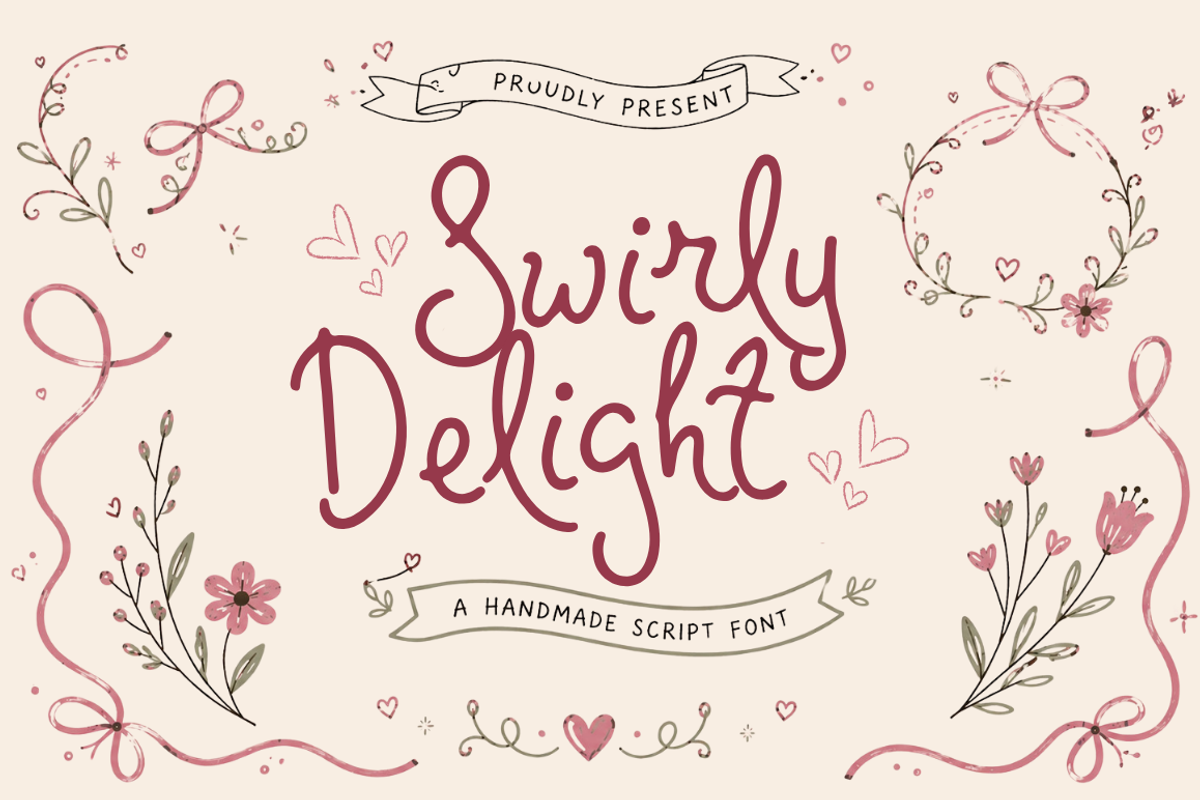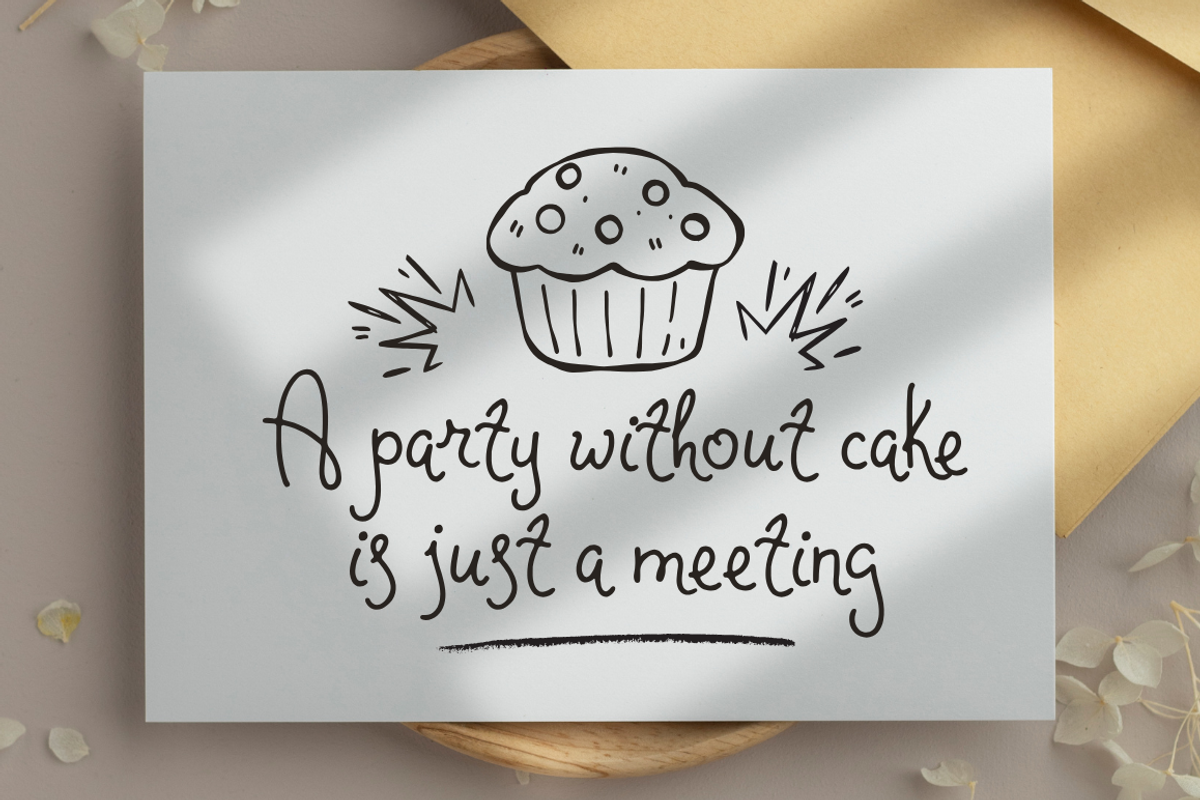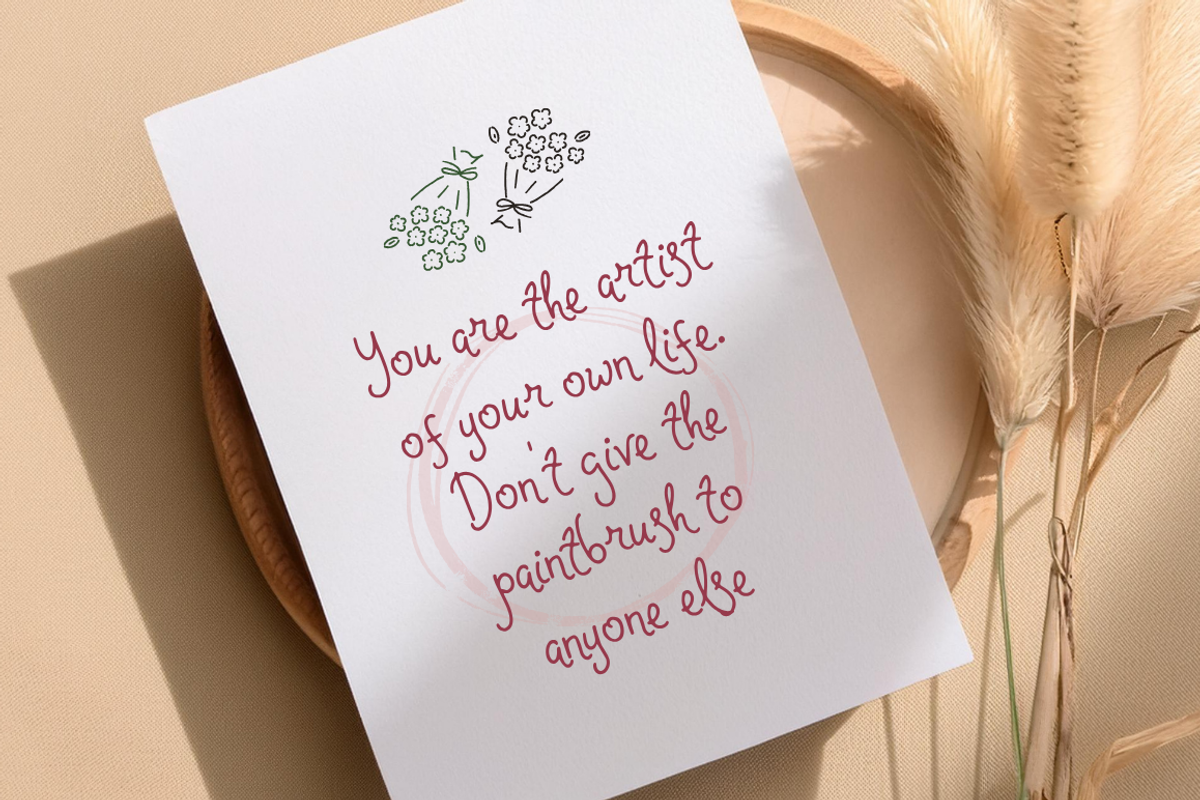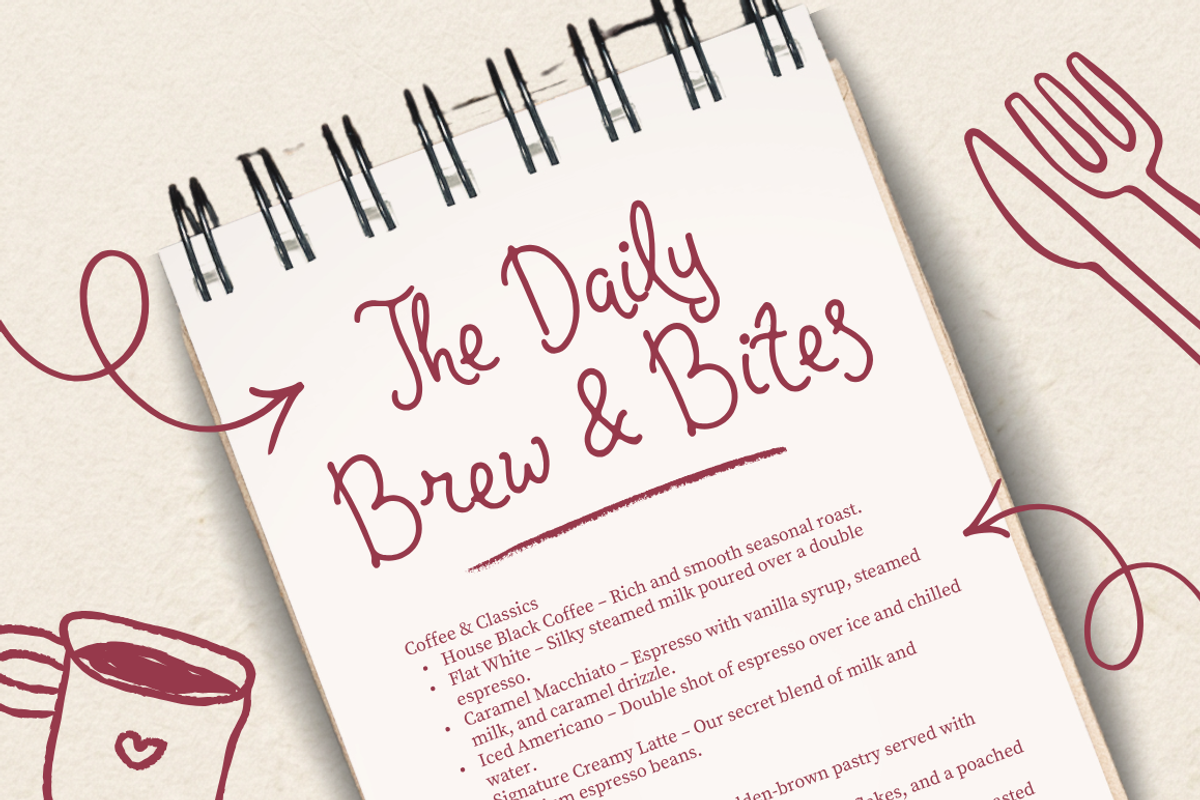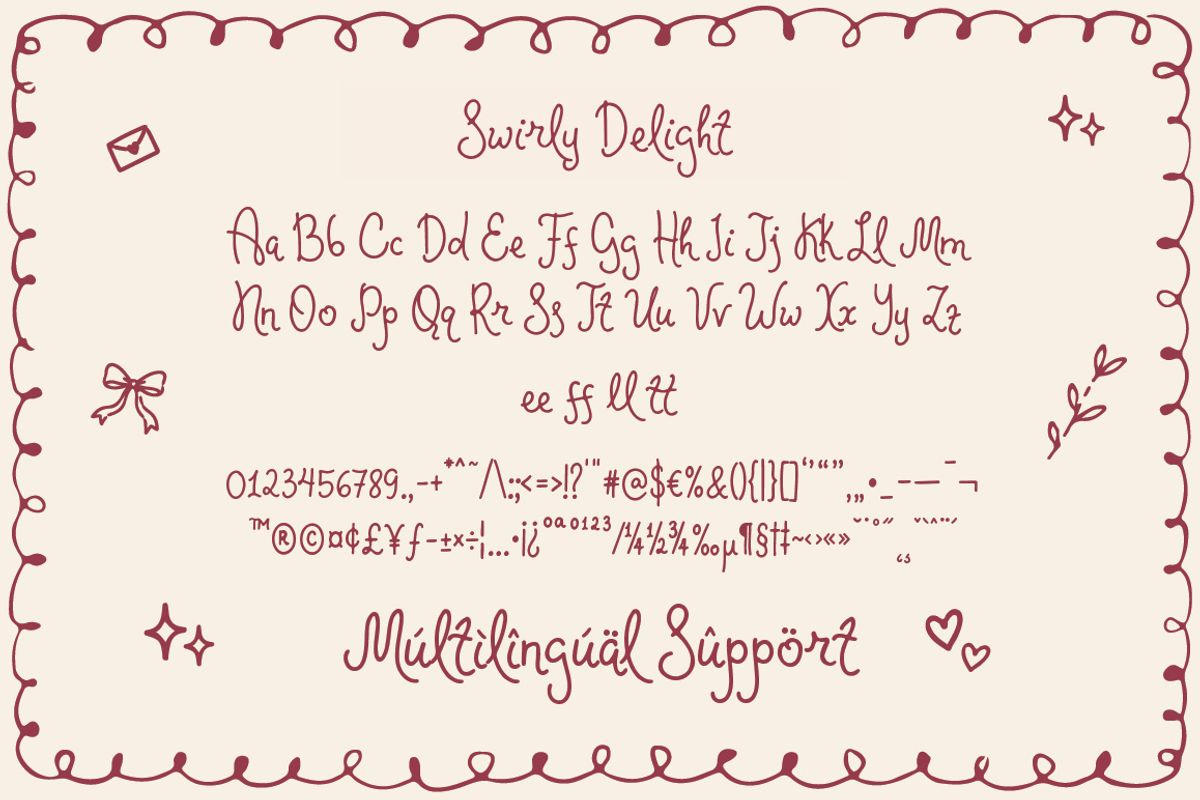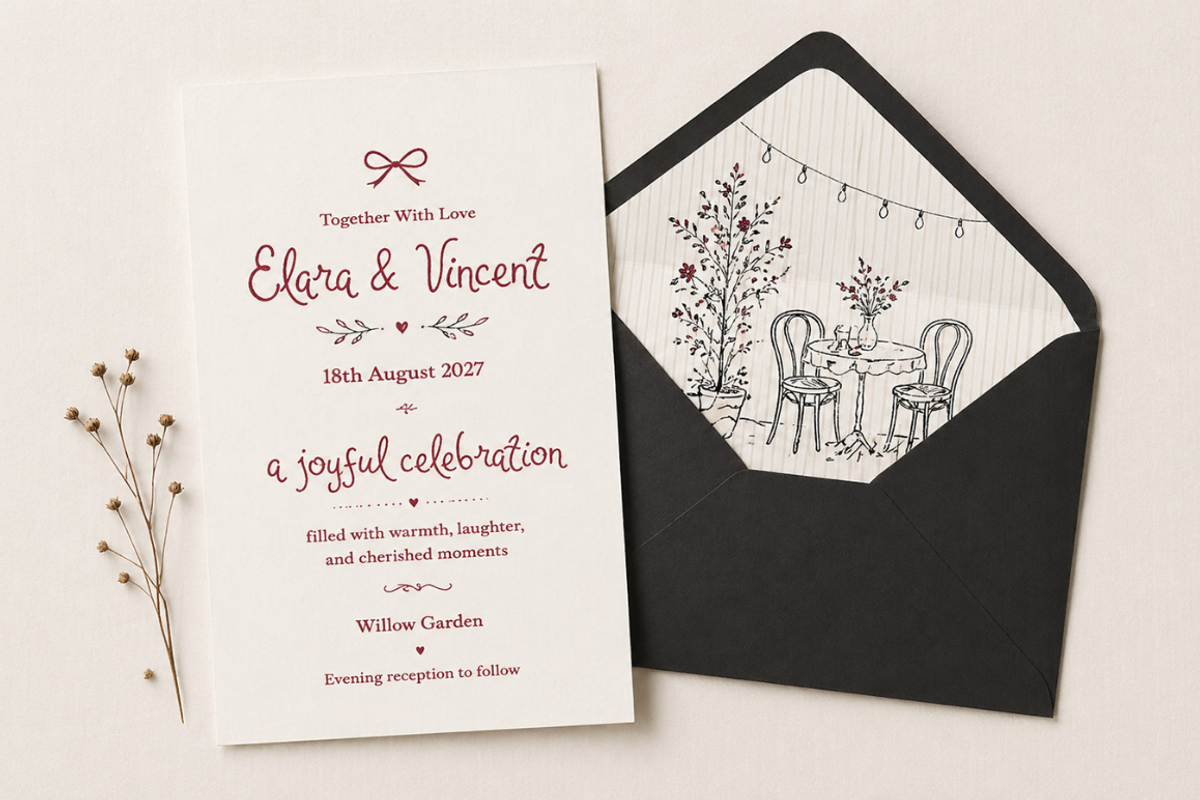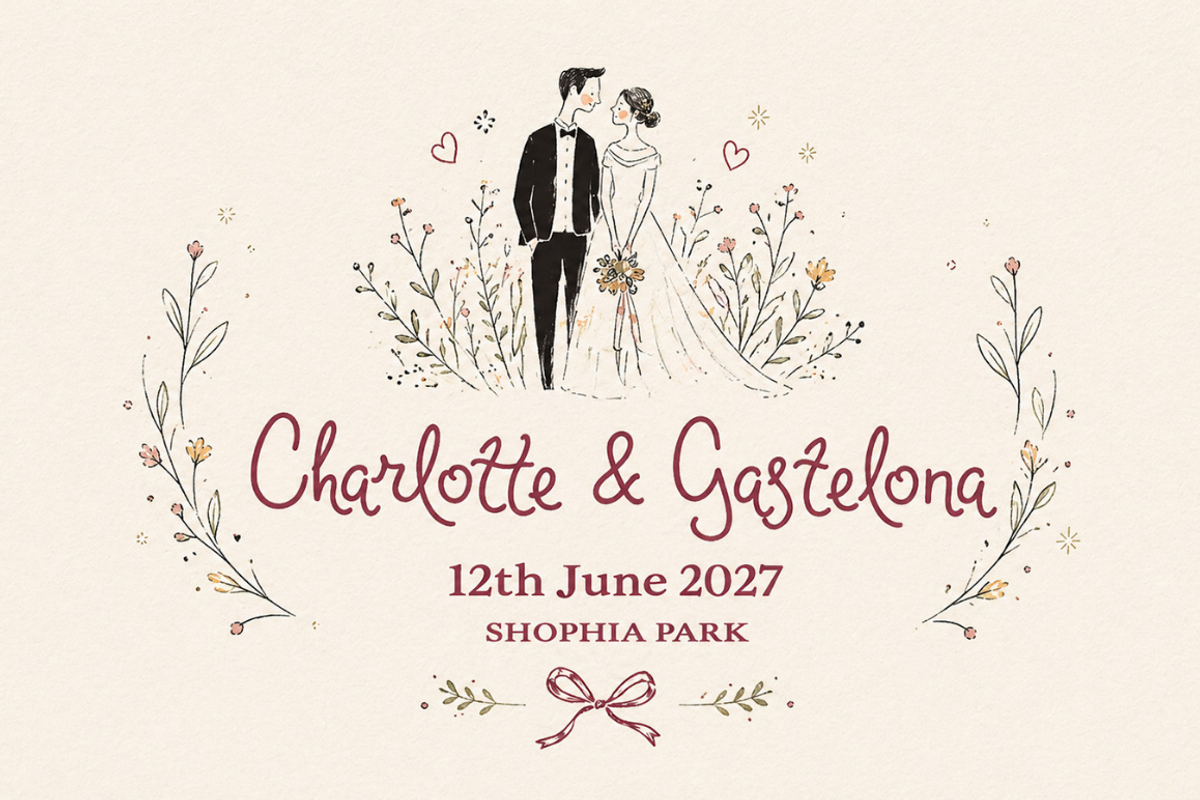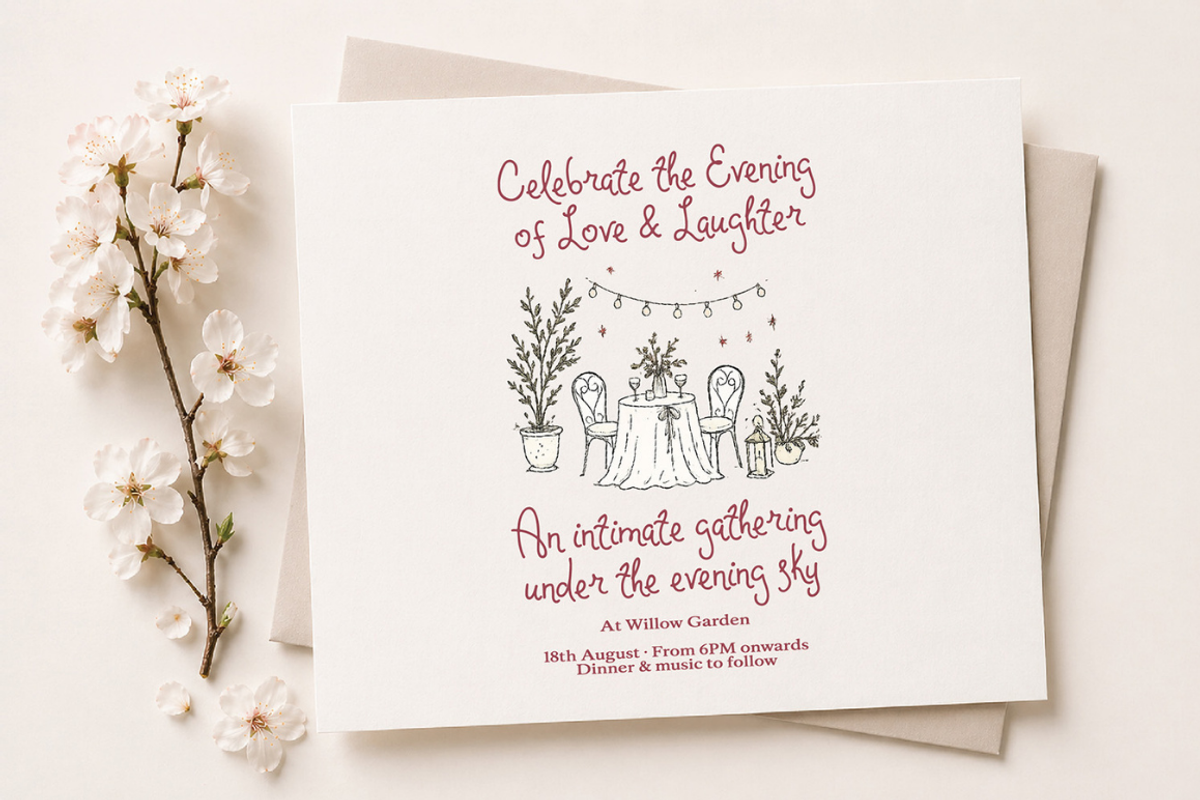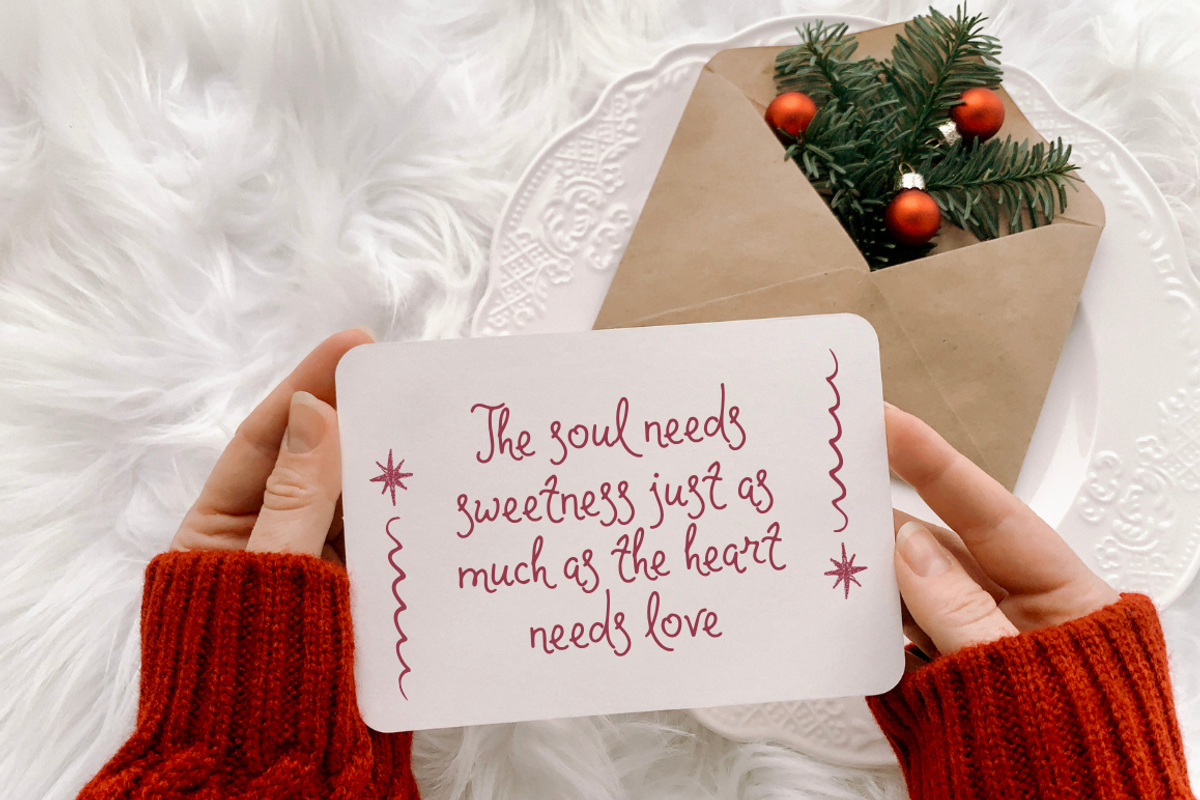
Swirly Delight - Handwritten Font
Swirly Delight is a charming handmade script font filled with sweetness, warmth, and playful elegance. With its soft curves, whimsical swirls, and delicate hand-drawn feel, this font brings a lovely and heartfelt touch to your designs. Perfect for invitations, greeting cards, wedding projects, branding, and cute decorative layouts, Swirly Delight captures the beauty of simple, joyful creativity.
Surrounded by floral doodles and romantic accents, this font feels personal and expressive, like a handwritten note made with love. Add a touch of softness and delight to your typography with Swirly Delight.
- Numerals & punctuation